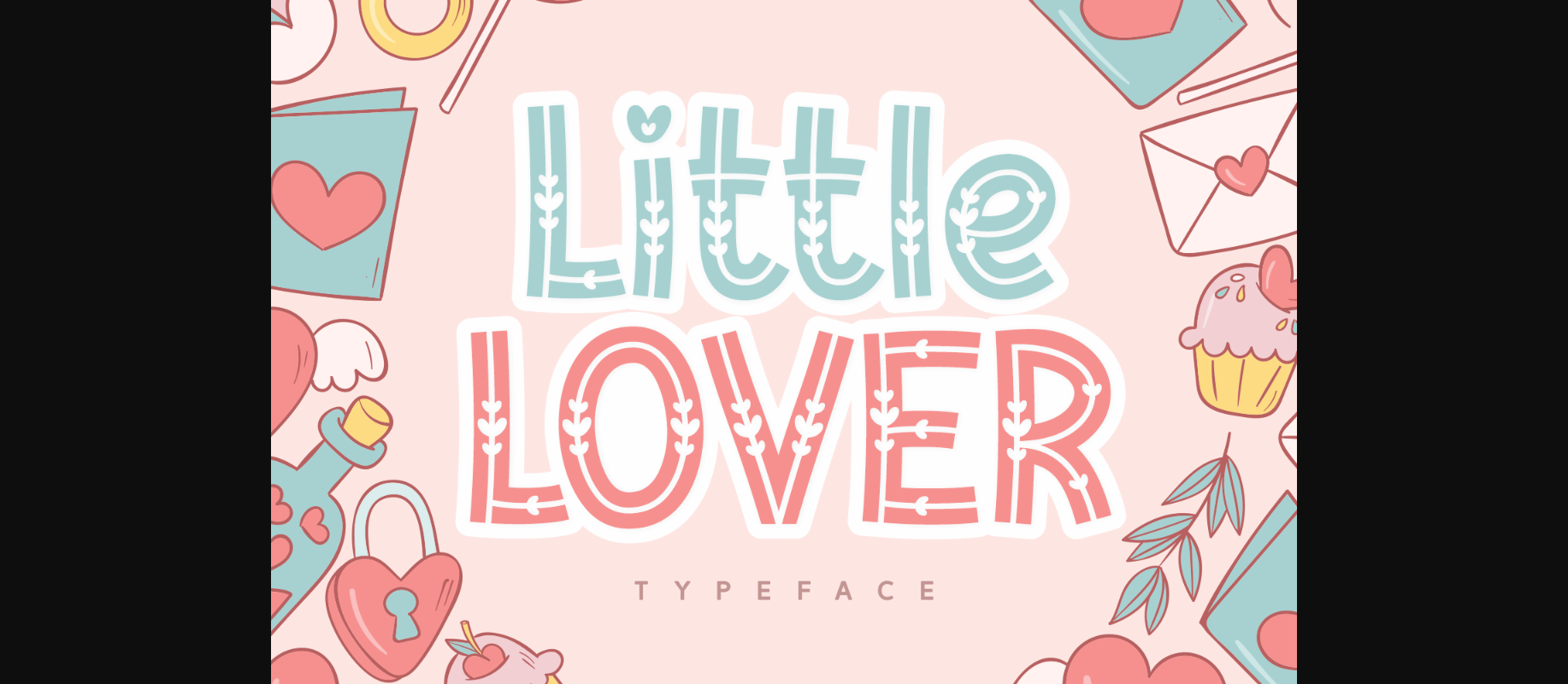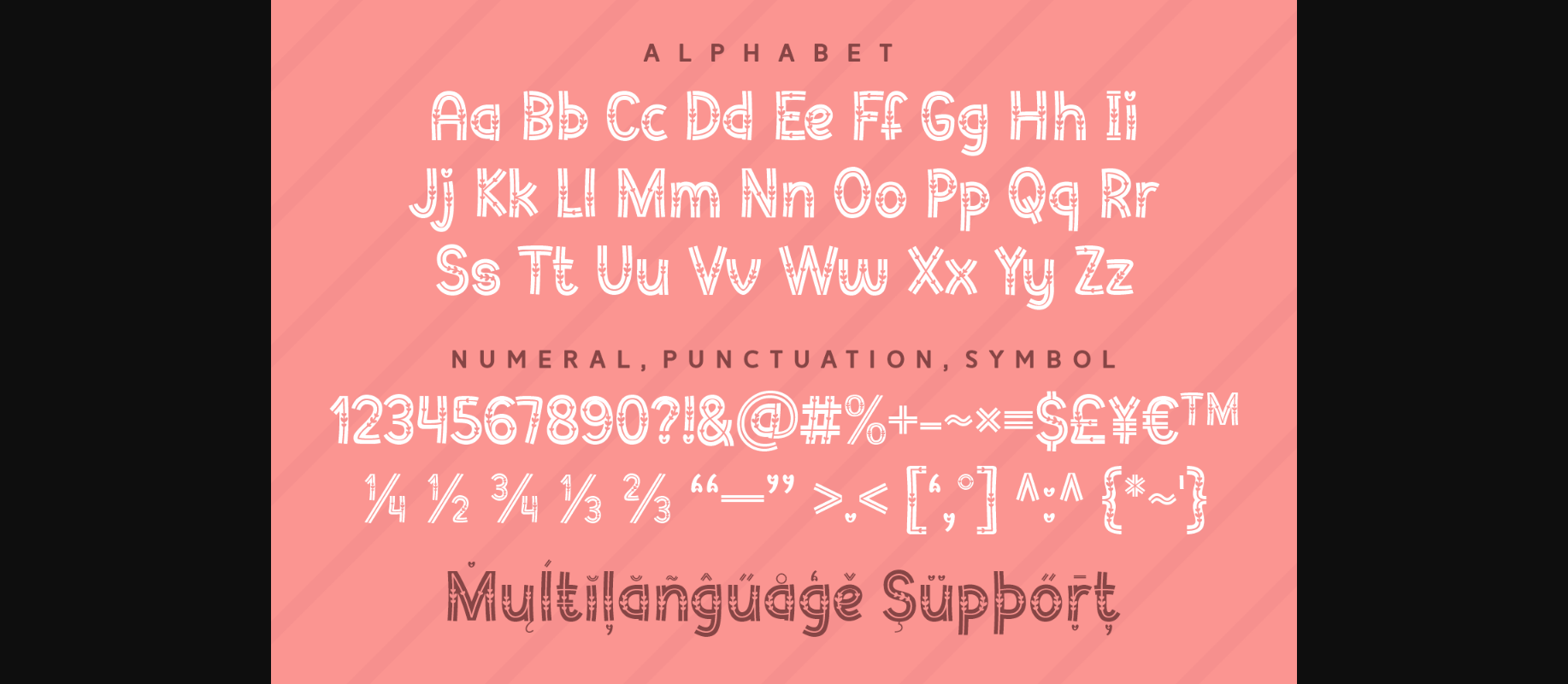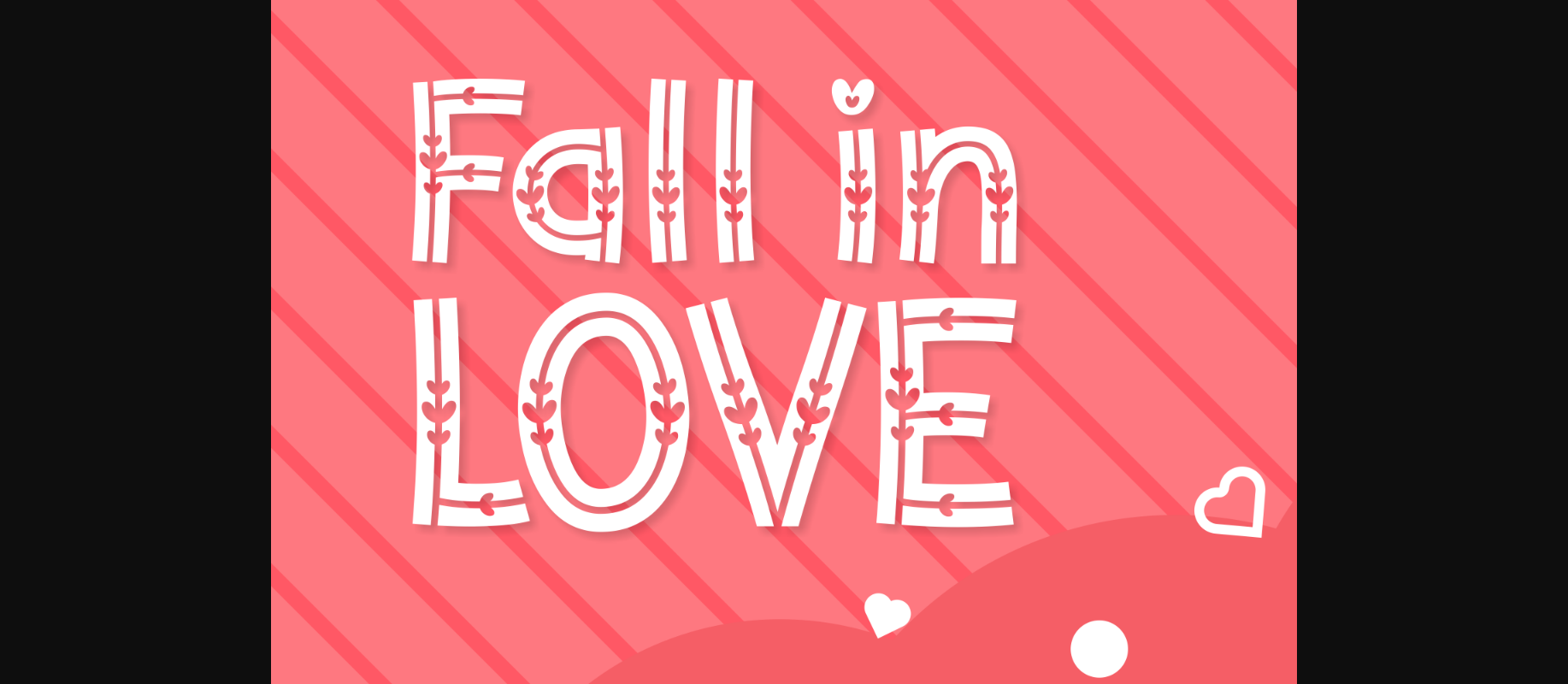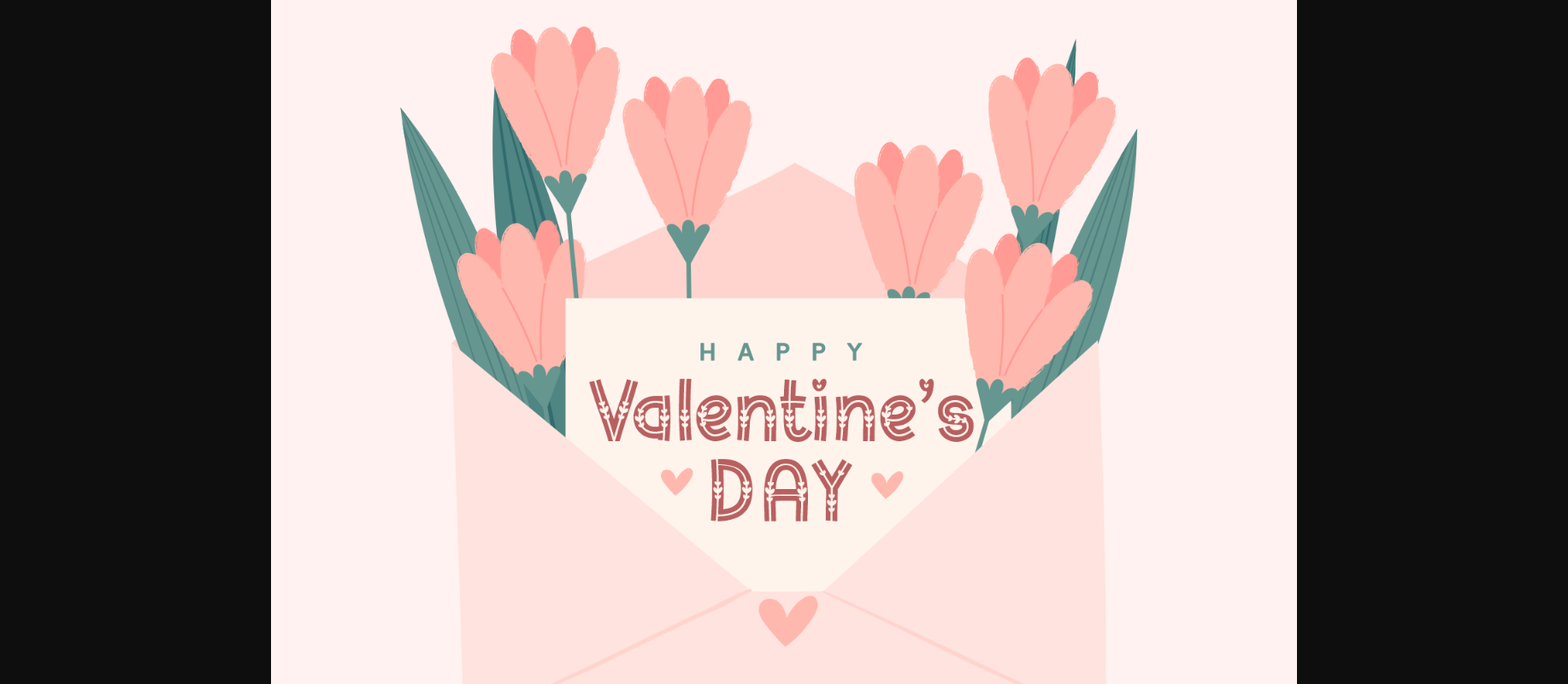
About Little Lover Font
Little Lover is a cool and romantic decorative font. Warm, romantic and jolly, this font will turn each of your project ideas into real works of art. Have fun with this beautiful font and explore its endless variations.